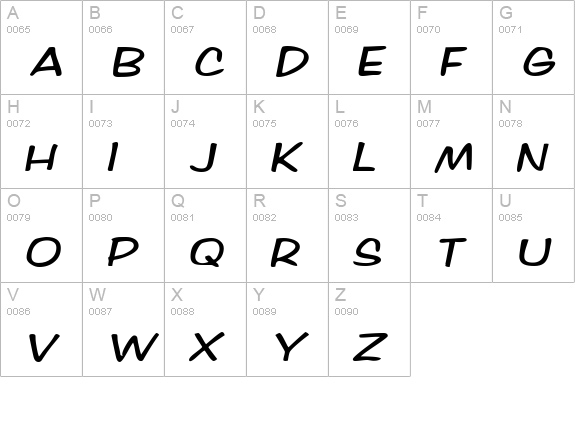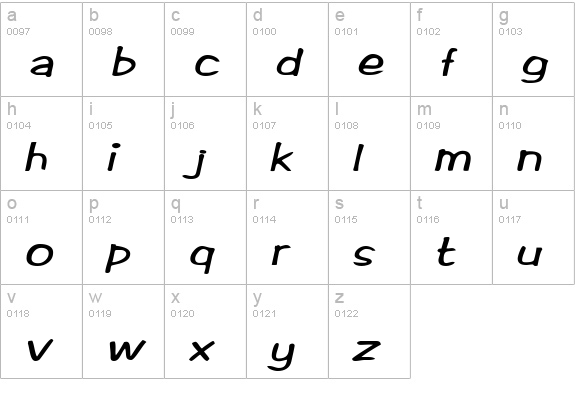
RifrafScriptSSK BoldItalic Font Details
RifrafScriptSSK BoldItalic is a stunning and dynamic font that exudes a sense of sophistication and flair. Its bold and italicized design adds a touch of elegance to any project, making it perfect for a wide range of creative endeavors. This font is ideal for adding emphasis and style to headings, titles, logos, and more. Its unique combination of boldness and italics creates a visually arresting effect that commands attention and makes a lasting impression. Whether you're designing a poster, creating a website, or crafting a captivating advertisement, RifrafScriptSSK BoldItalic is sure to elevate your work to new heights. One of the best features of RifrafScriptSSK BoldItalic is that it is freely available to download at FontsMarket.com. This means that you can enjoy the beauty and versatility of this font without any cost. It's a fantastic opportunity to enhance your projects without breaking the bank. Not only does RifrafScriptSSK BoldItalic offer a visually stunning aesthetic, but it also provides excellent legibility. Each letter is meticulously crafted, ensuring that your text remains clear and readable, even at smaller sizes. This makes it an excellent choice for both print and digital designs. The versatility of RifrafScriptSSK BoldItalic is further enhanced by its compatibility with various design software and operating systems. Whether you're using Adobe Creative Suite, Microsoft Office, or any other design platform, you can seamlessly incorporate this font into your workflow. With its bold and italicized design, RifrafScriptSSK BoldItalic is guaranteed to make a bold statement and add a touch of sophistication to your projects. And the best part? It's completely free to download at FontsMarket.com. Don't miss out on this incredible opportunity to elevate your designs and unleash your creativity with RifrafScriptSSK BoldItalic.